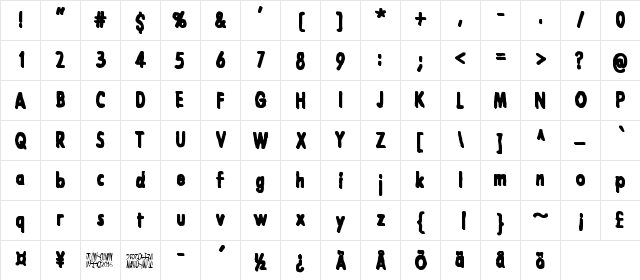
Lazarus Oz Kolsvart Regular
Design Context for Lazarus Oz Kolsvart Typeface
Lazarus Oz Kolsvart is a composed and adaptable typeface that performs quietly and consistently across a wide range of design contexts.